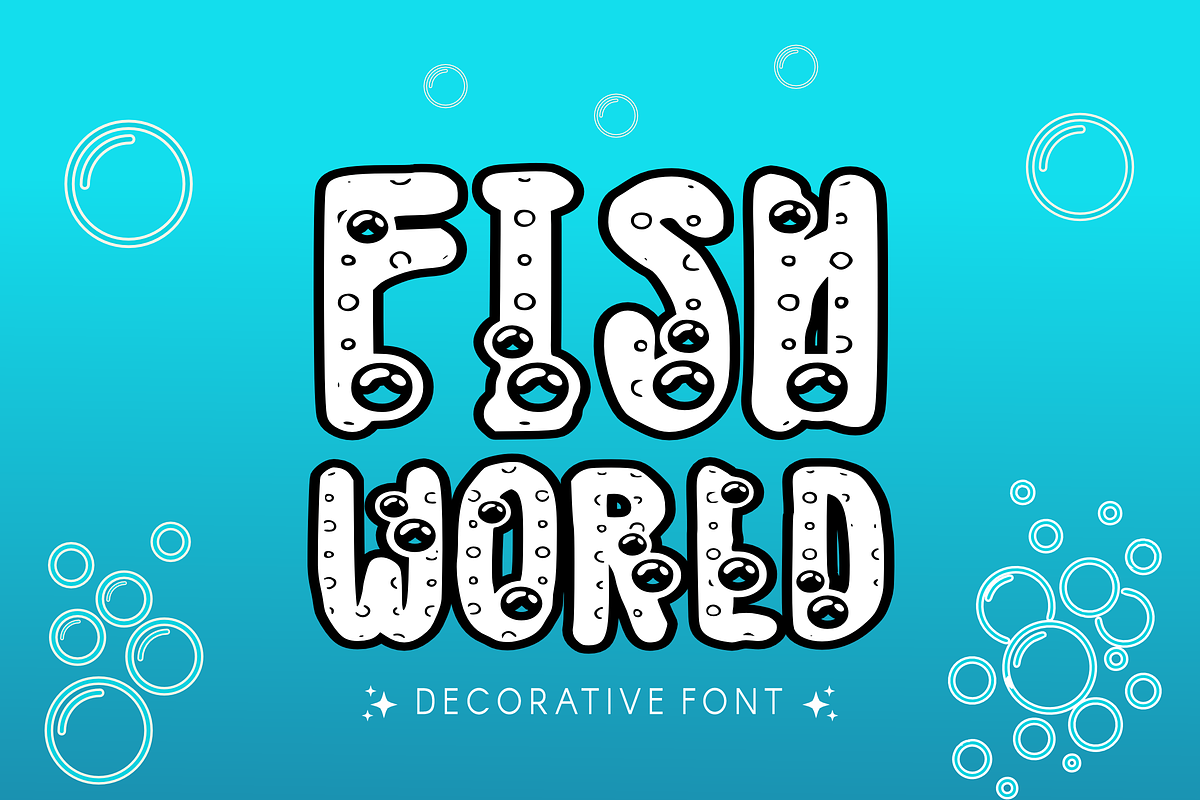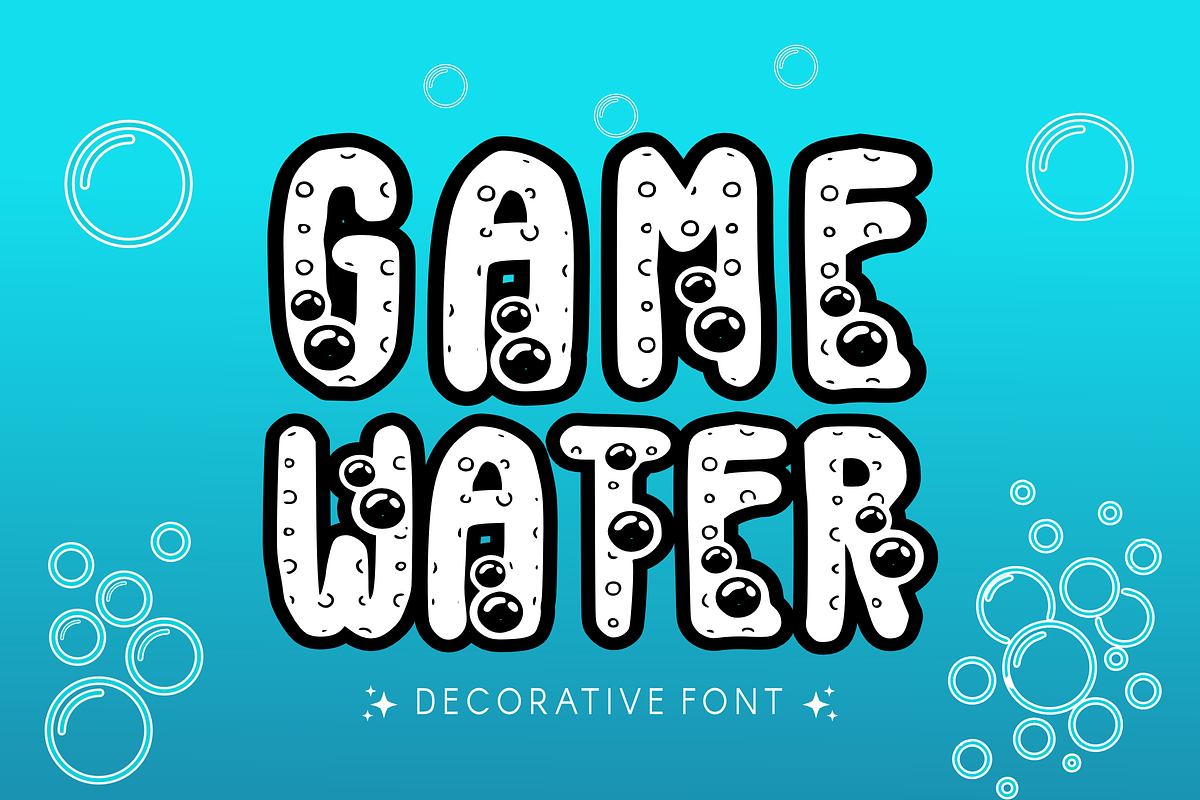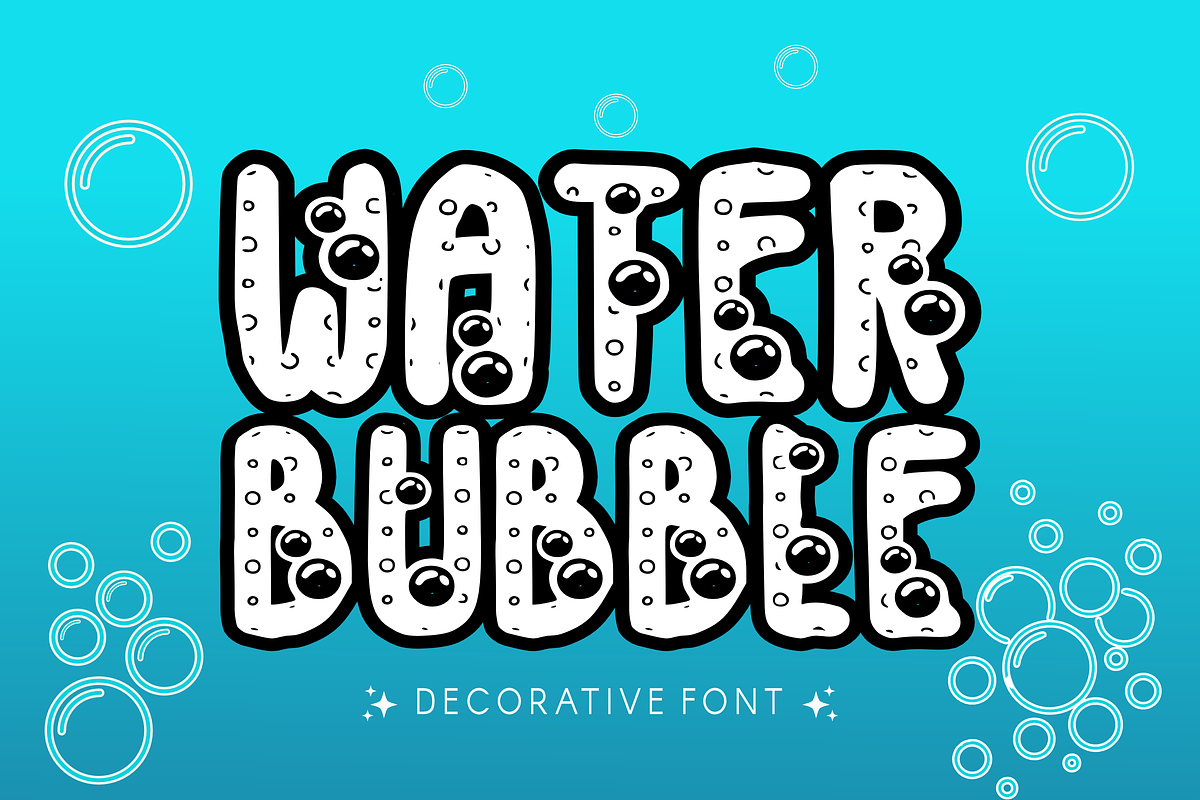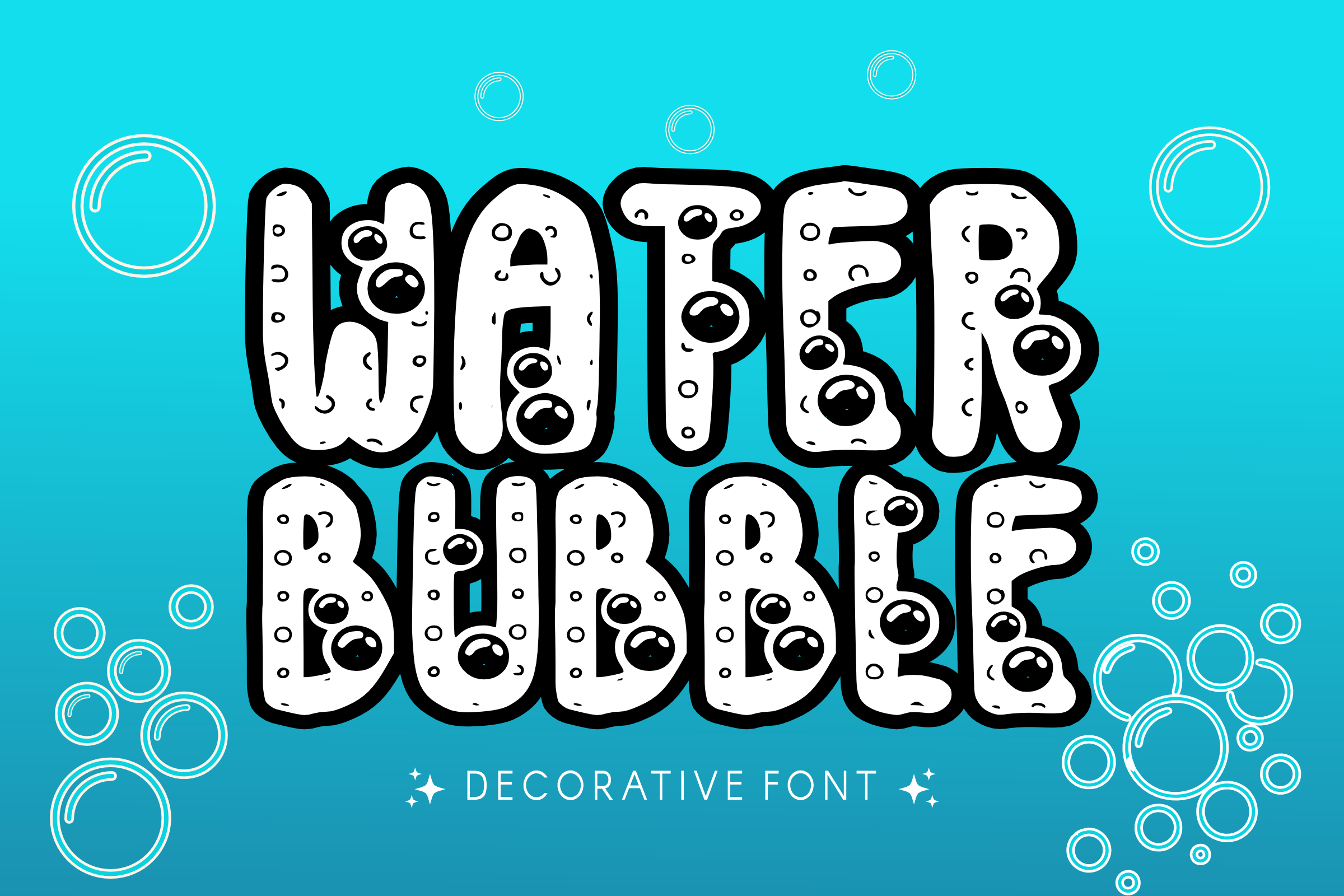
Water Bubble - Decorative Font
š Water Bubble - Fresh & Bouncy Display Font š«§ Make a splash with Water Bubble! This refreshing display font features ultra-chunky, rounded characters with a playful liquid vibe. Designed with a bold "sticker-style" outline and soft, cloud-like curves, it perfectly captures the fun and fluid energy of bubbles floating in the air or waves in the ocean.
Itās the perfect choice for high-impact headlines that need to look friendly, cool, and full of life!
⨠Key Features: š§ Chubby Uppercase: Bold, fluid characters that are easy to read and fun to look at.
š¢ Numbers 0-9: Perfectly coordinated bubbly numerals for all your counting needs.
š«§ Simple Symbols: Essential punctuation to add that perfect finishing touch.
āļø Sticker Ready: Smooth, high-quality edges ideal for vinyl cutting, stickers, and printing.
šØ Perfect For: šļø Summer & Beach Themes: Pool party invites, beach club logos, and tropical posters.
š§ø Kids Branding: Bath toy packaging, children's apparel, and nursery decor.
š„¤ Beverage Packaging: Soda labels, juice bar menus, and water bottle designs.
š« School Projects: Classroom banners, teacher resources, and educational games.
š± Digital Content: Refreshing YouTube thumbnails and playful social media graphics.
Dive into your next creative project with the Water Bubble font today!